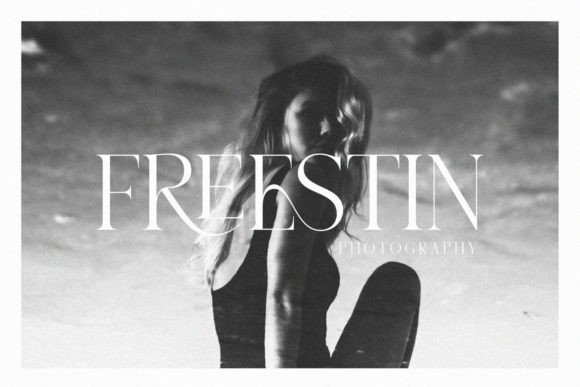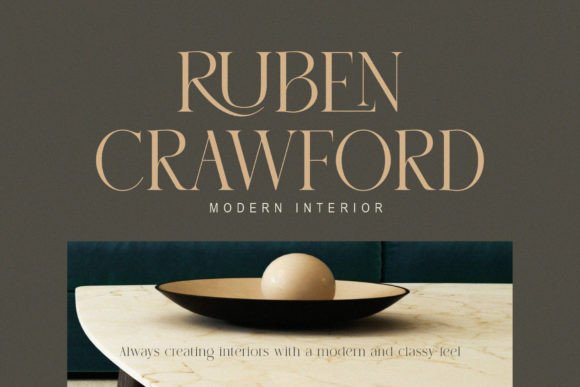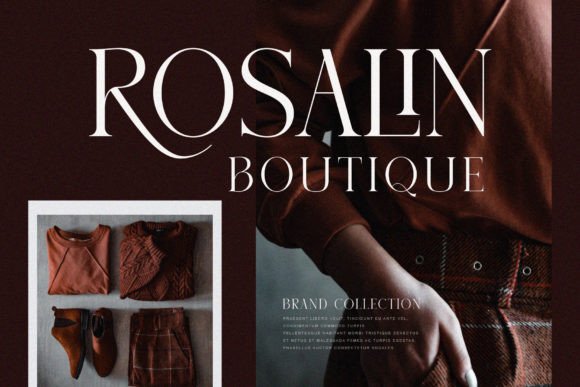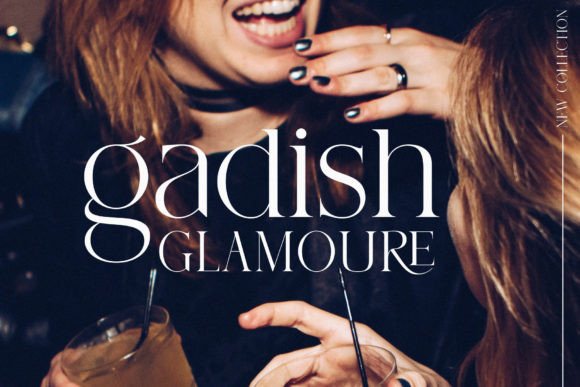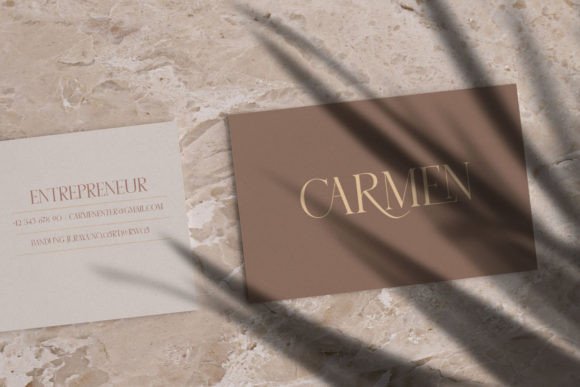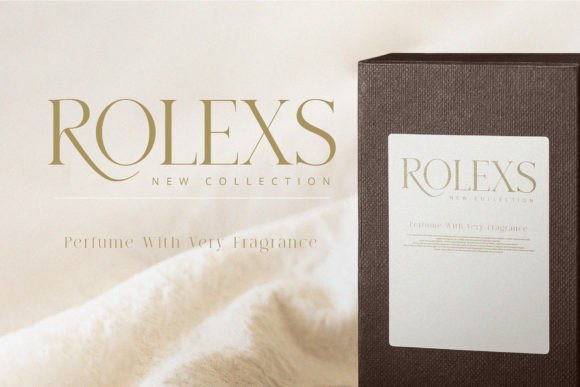
Bloverly Font: Elevate Your Designs with Sophistication and Elegance
In the world of typography, a font can make or break a design. For designers and crafters seeking to add a touch of luxury and refinement to their projects, Bloverly Font is an exceptional choice. This beautiful and classy serif font is designed to evoke sophistication and elegance, making it perfect for high-end branding, formal invitations, editorial design, and more.
The Essence of Bloverly Font
Bloverly Font boasts a timeless style that exudes refinement and poise. Its graceful curves and classic serif lines make it an ideal choice for designers looking to create a sense of opulence and grandeur. Whether you’re working on a luxury brand, a high-end product, or a prestigious event, Bloverly Font is sure to elevate your design to new heights.
Key Features of Bloverly Font
- PUA Encoding: Bloverly Font is PUA (Private Use Area) encoded, which means you can access all the delightful glyphs and swashes effortlessly. This feature allows for greater flexibility and creativity in your designs.
- Serif Elegance: The font’s classic serif lines add a touch of sophistication and refinement to any design.
- Graceful Curves: Bloverly Font’s smooth, flowing curves create a sense of elegance and luxury.
- Timeless Style: The font’s timeless design ensures it will remain relevant and stylish for years to come.
Use Cases for Bloverly Font
Bloverly Font is an incredibly versatile typeface, suitable for a wide range of design applications. Here are some examples of how you can use this beautiful font:
- Formal Invitations: Create stunning formal invitations for weddings, galas, and other high-end events with Bloverly Font.
- High-End Branding: Use Bloverly Font to create luxurious brand identities that exude sophistication and refinement.
- Editorial Design: Elevate your editorial designs, such as magazines, newspapers, and books, with the elegant and refined Bloverly Font.
- Packaging Design: Add a touch of luxury to your packaging designs with Bloverly Font, perfect for high-end products and premium brands.
Tips for Using Bloverly Font
To get the most out of Bloverly Font, here are some tips to keep in mind:
- Pair with Contrasting Fonts: Combine Bloverly Font with contrasting fonts to create visual interest and hierarchy in your designs.
- Experiment with Swashes: Take advantage of Bloverly Font’s PUA encoding and experiment with the various swashes and glyphs to add a personal touch to your designs.
- Adjust Font Sizes: Play with different font sizes to create a sense of hierarchy and emphasis in your designs.
Bloverly Font is a stunning serif font that embodies sophistication and elegance. With its timeless style, graceful curves, and PUA encoding, this font is perfect for designers and crafters seeking to add a touch of luxury to their projects. Whether you’re working on formal invitations, high-end branding, or editorial design, Bloverly Font is sure to elevate your designs to the next level. So why wait? Discover the beauty of Bloverly Font and take your designs to new heights of sophistication and refinement.